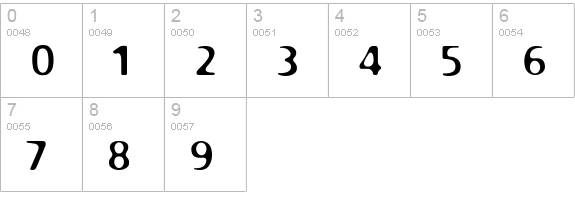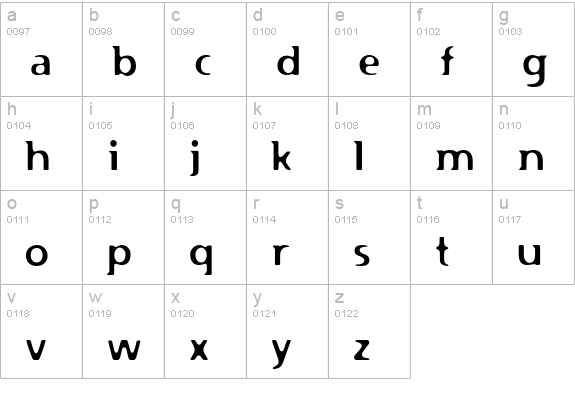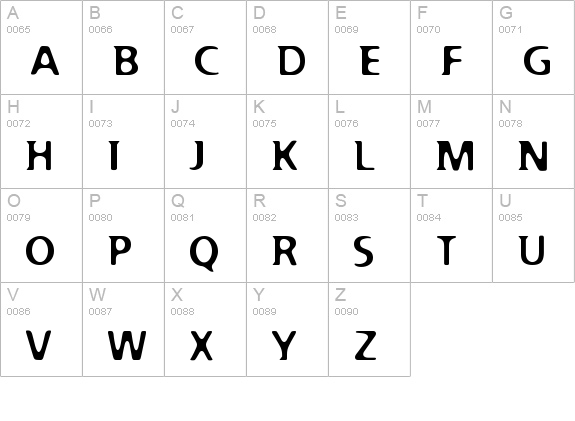
PFPlazm Regular Font Details
PFPlazm Regular is the standard, neutral variant in the PFPlazm typeface family \xE2\x80\x94 well suited to general body text, paragraphs, and standard typographic work.
PFPlazm Regular font is a modern and versatile typeface that is perfect for a wide range of design projects. With its clean and stylish appearance, this font is sure to make a statement and elevate any design. The smooth curves and sharp lines of PFPlazm Regular give it a contemporary and professional look that is ideal for branding, advertising, web design, and more. What's even better is that PFPlazm Regular font is available for free download at FontsMarket.com. This means you can easily access this high-quality font and use it in your projects without any cost. So why wait? Download PFPlazm Regular font today and add a touch of sophistication to your designs!